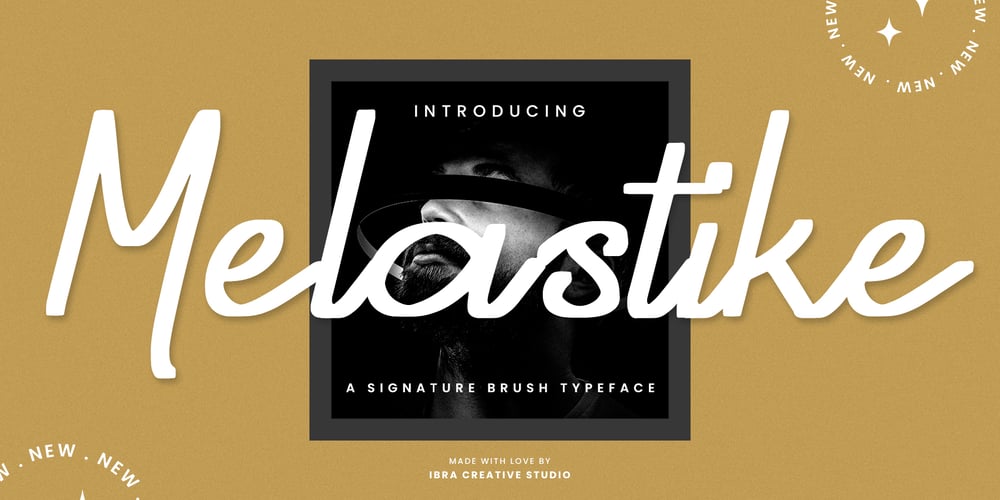
Melastike
Melastike font
Melastike Font Family was designed by Roisatul Azizah and published by IbraCreative. Melastike contains 1 styles and family package options. Melastike – A Signature Brush TypefaceMelastike, a signature brush typeface, embodies the essence of elegance and personalized flair. With its fluid strokes and distinctive brush texture, Melastike creates an authentic handwritten feel, making it ideal for projects that demand a touch of individuality and sophistication. This typeface seamlessly merges a sense of casual ease with a refined aesthetic, allowing it to lend a distinct character to branding, invitations, or any design seeking a handwritten signature touch. Melastike’s graceful curves and dynamic letterforms evoke a sense of creativity, making it a versatile choice for those who appreciate the artistry of handwritten expression in the digital realm.Melastike is perfect for branding projects, logo, wedding designs, social media posts, advertisements, product packaging, product designs, label, photography, watermark, invitation, stationery, game, fashion and any projects.Fonts include multilingual support for; Afrikaans, Albanian, Czech, Danish, Dutch, English, Estonian, Finnish, French, German, Hungarian, Italian, Latvian, Lithuanian, Norwegian, Polish, Portuguese, Slovak, Slovenian, Spanish, Swedish.